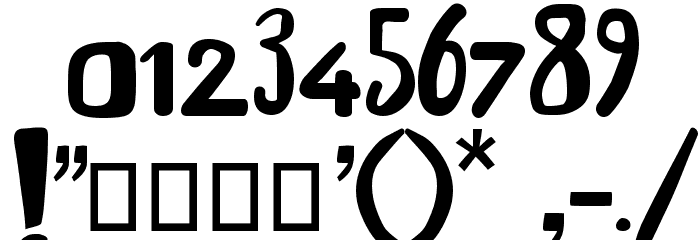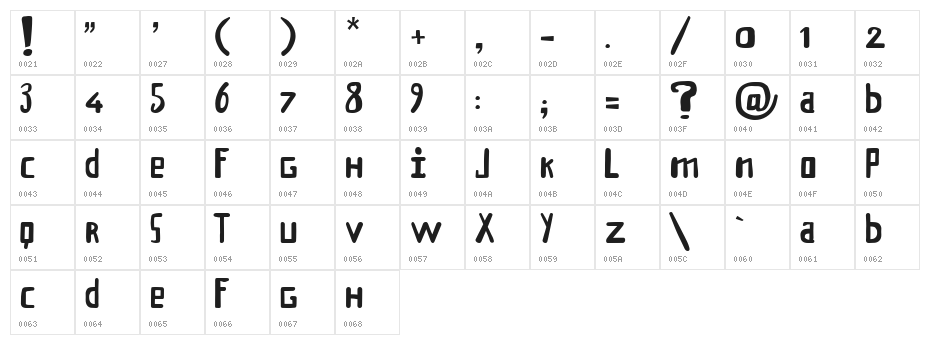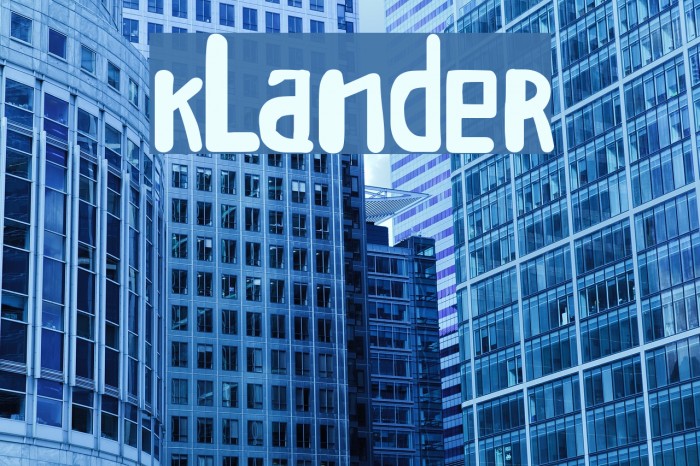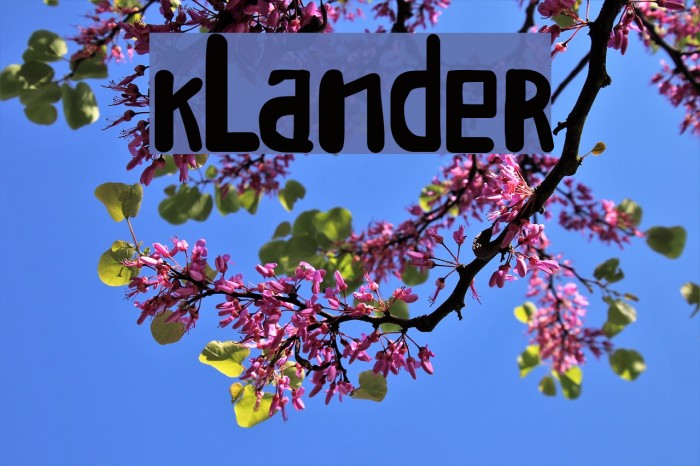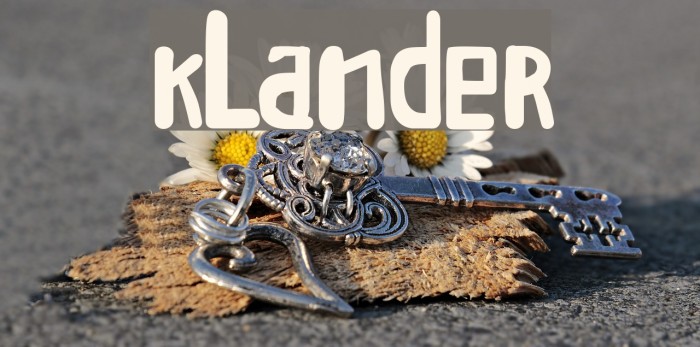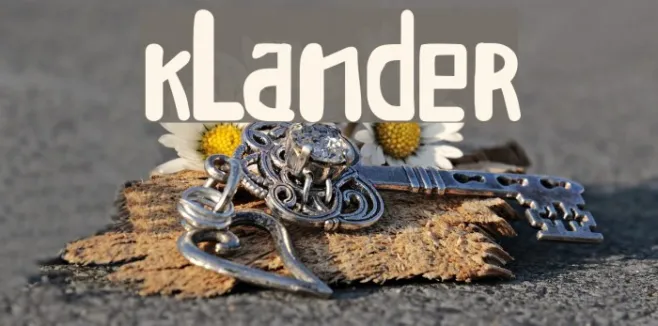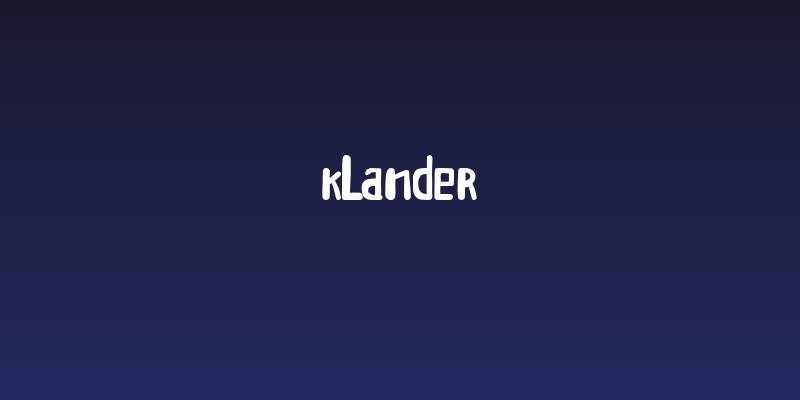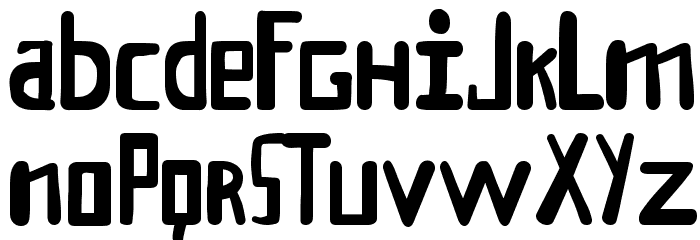
Klander Font
Klander Description
This font features a playful and bold design with a hand-drawn aesthetic. The characters are slightly irregular, giving it a whimsical and informal feel. The uppercase and lowercase letters maintain a consistent style, with rounded edges and varying stroke thicknesses that add to its charm. The numbers and special characters follow the same playful theme, making it suitable for creative projects. Its unique style makes it stand out, offering a friendly and approachable look that can be used to convey a sense of fun and creativity.
| Proposed Projects | Ideal for children's books, playful branding, creative posters, and casual invitations. |